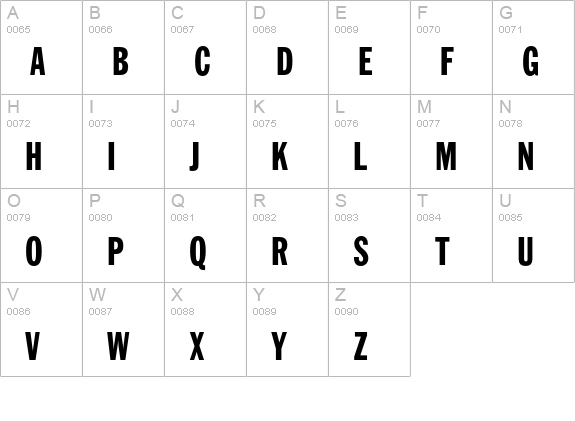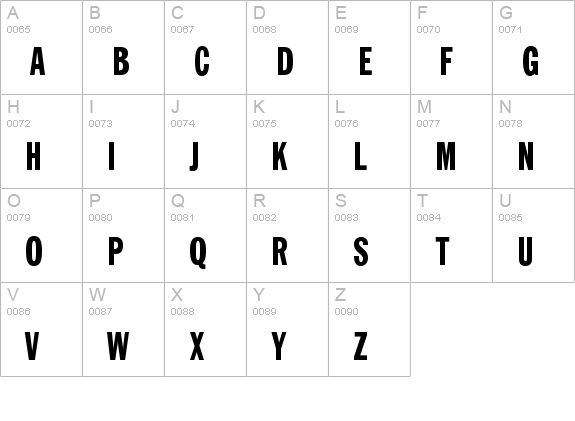
Franklin Gothic Extra Condensed is a distinctive, condensed-width variant in the Franklin typeface family \xE2\x80\x94 well suited to design and typography projects.
Franklin Gothic Extra Condensed is a sleek and modern font that exudes elegance and sophistication. With its narrow letterforms and crisp lines, this typeface is perfect for creating a bold and impactful visual presence. Whether used in headlines, logos, or branding materials, Franklin Gothic Extra Condensed adds a touch of contemporary flair to any design. The best part? This stunning font is available for free download at FontsMarket.com. Embrace the versatility and style of Franklin Gothic Extra Condensed in your projects today and make a lasting impression with its unique aesthetic.